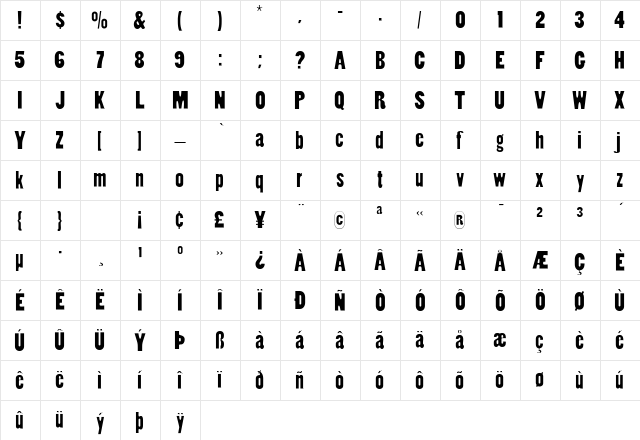
ConoverSSK Regular
Design Context for ConoverSSK Typeface
ConoverSSK takes a measured approach to typography — its balanced proportions and neutral character make it a reliable workhorse for both digital and print work.